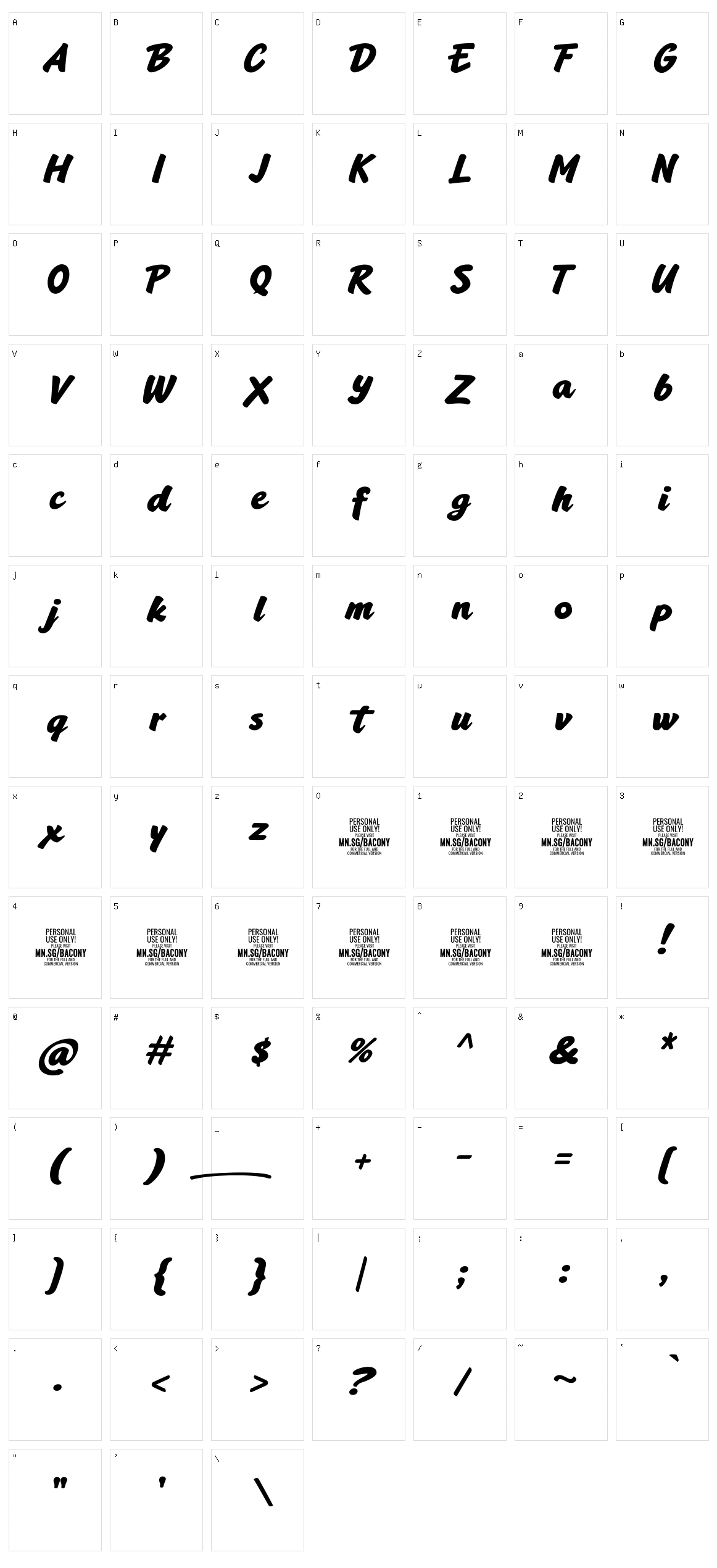
Bacony Script is a bold script font.
This rustic font is expressive, and is constructed of fat brush strokes and heavy letterforms.
Use it for a comical logotype or headline to give your work that genuine handpainted look.
The Bacony Script family consists of four high-quality fonts:
Regular, Italic, Bold and Bold Italic
The font is built with advanced OpenType functionality and has a guaranteed top-notch quality, containing stylistic and contextual alternates, ligatures and more features; all to give you full control and customizability.
It has extensive lingual support, covering all Latin-based languages, from Northern Europe to South Africa, from America to South-East Asia.
It contains all characters and symbols you'll ever need, including all punctuation and numbers.